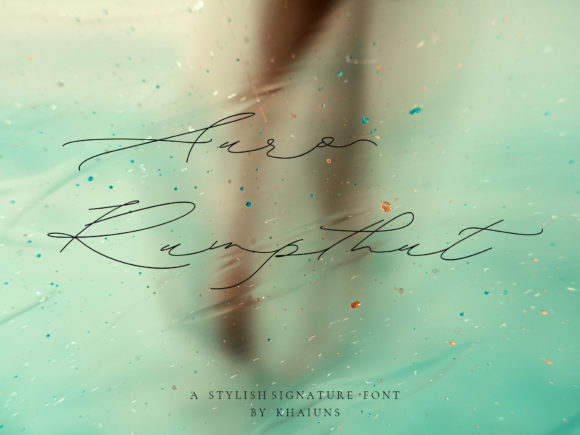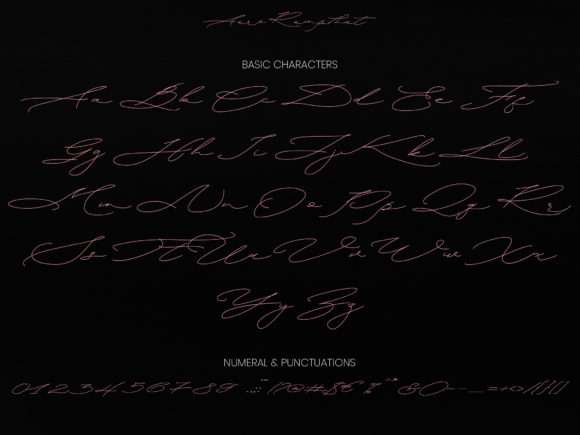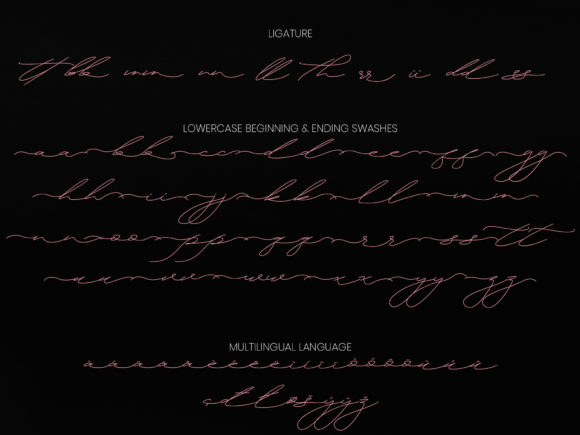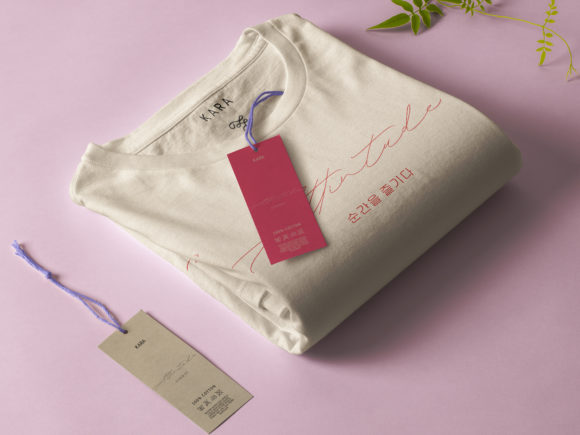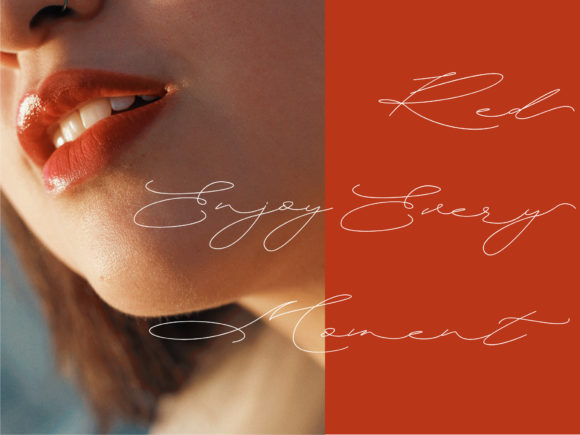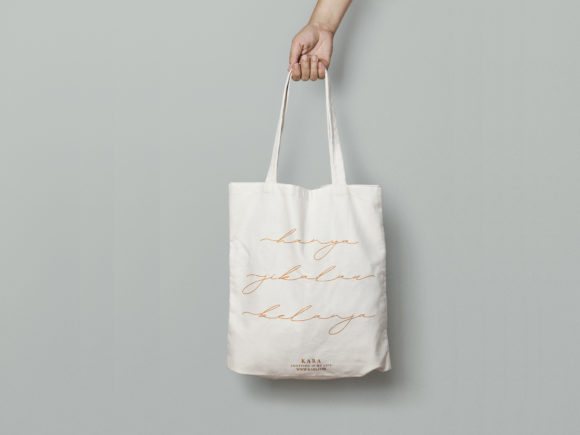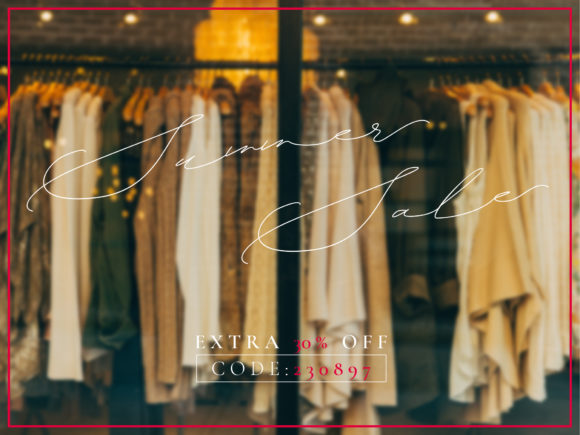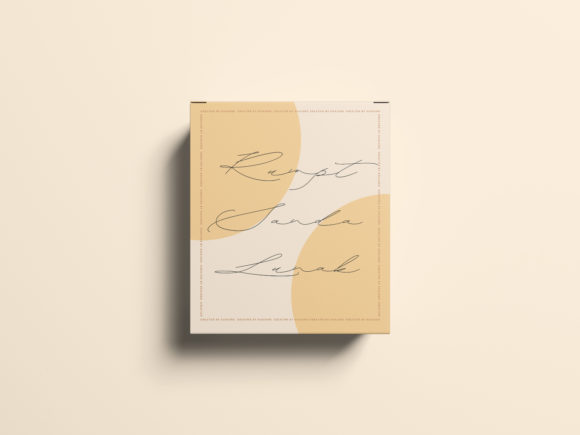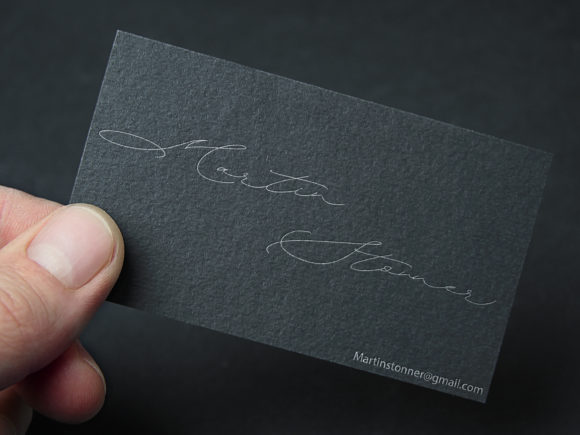
Auro Rumpthut Font
About Auro Rumpthut Font
Auro Rumpthut is a modern script with a contemporary feel. Use it to turn any design project into an eye-catcher!